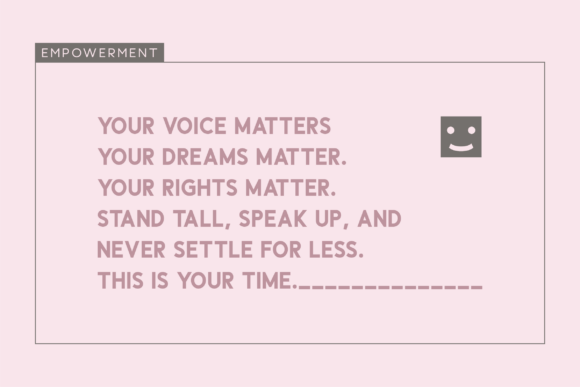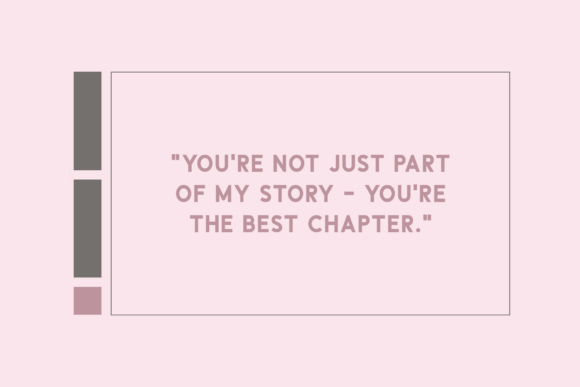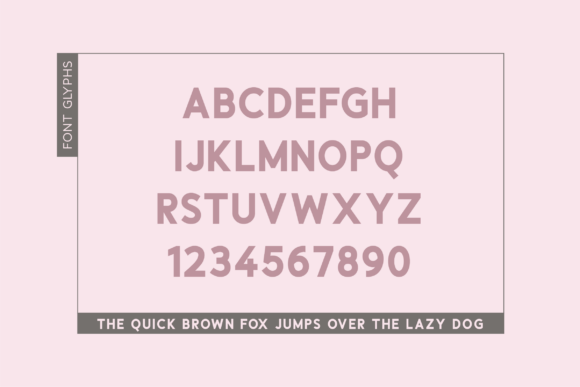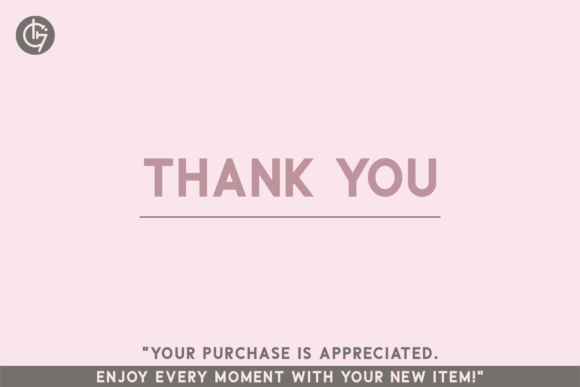
Introducing Calvonia – A Modern Sans Serif Typeface
In the world of design, typography plays a crucial role in conveying messages, expressing ideas, and creating lasting impressions. For designers and crafters seeking a font that embodies modernity, professionalism, and impact, Calvonia is an exceptional choice. This bold, all-caps sans serif typeface is specifically designed to meet the demands of contemporary design projects, offering a perfect blend of style, versatility, and readability.
Design Characteristics of Calvonia
Calvonia’s design is characterized by its clean lines, minimalist aesthetic, and strong, geometric structure. The font’s bold, all-caps design ensures maximum impact, making it ideal for headlines, posters, and any design element that requires attention-grabbing typography. The sharp, crisp edges of Calvonia contribute to its confident and professional look, suitable for a wide range of applications, from branding and logos to packaging and digital design.
Key Features of Calvonia
- All-caps design for maximum impact and emphasis on clarity and readability.
- Modern, minimalist style with a focus on clean lines and simplicity.
- Bold, clean lines for a confident and professional appearance.
- Ideal for branding, logos, packaging, and digital design.
- Perfect for both large-scale headlines and smaller text blocks.
Versatility of Calvonia
One of the standout features of Calvonia is its versatility. The font’s design ensures it can be effectively used across various mediums, from digital interfaces to high-end branding projects. Whether you’re working on a website, mobile app, or print material, Calvonia’s clean and bold appearance adapts seamlessly, maintaining its impact and readability.
Who Can Benefit from Calvonia?
Calvonia is an excellent choice for a wide range of professionals and entities, including:
- Brands looking to establish a strong and modern visual identity.
- Agencies seeking versatile and impactful typography for client projects.
- Designers and crafters aiming to elevate their design work with a contemporary and professional typeface.
Using Calvonia in Design Projects
Calvonia’s adaptability makes it suitable for various design applications. Here are some ways to incorporate Calvonia into your projects:
- Branding and Logos: Use Calvonia to create a bold and memorable brand identity.
- Web Design: Apply Calvonia for headings and titles to add a professional touch to your website.
- Print Materials: Enhance your brochures, posters, and business cards with Calvonia’s impactful typography.
- Digital Interfaces: Implement Calvonia in mobile apps, digital advertising, and social media graphics for a modern look.
Calvonia is more than just a typeface; it’s a design statement. With its bold, all-caps sans serif design, clean lines, and minimalist aesthetic, Calvonia offers designers and crafters a powerful tool to convey strength, authority, and professionalism. Its versatility across digital and print mediums, combined with its focus on readability, makes Calvonia an excellent addition to any design project. Whether you’re aiming to create a lasting brand impression, enhance your website’s typography, or simply looking for a modern and impactful font, Calvonia is poised to exceed your expectations.
Embrace the modernity and professionalism that Calvonia brings to your design projects. Explore the possibilities of this exceptional typeface and discover how it can elevate your work to new heights.